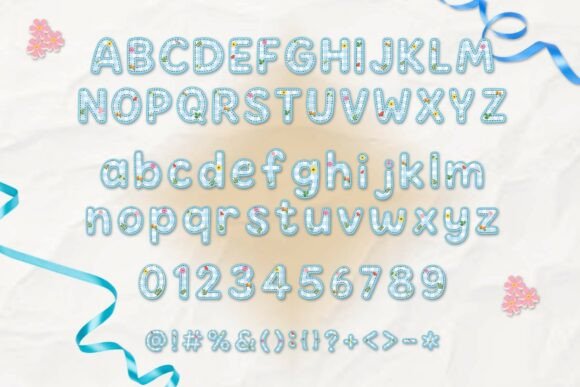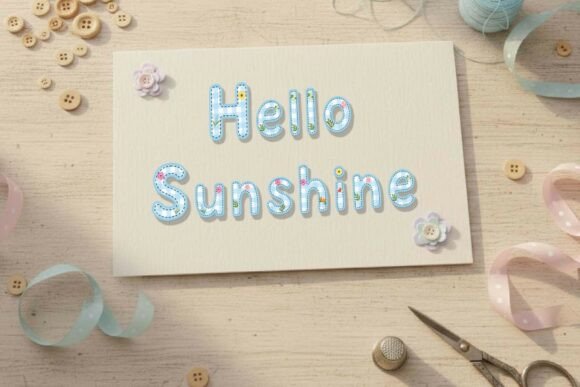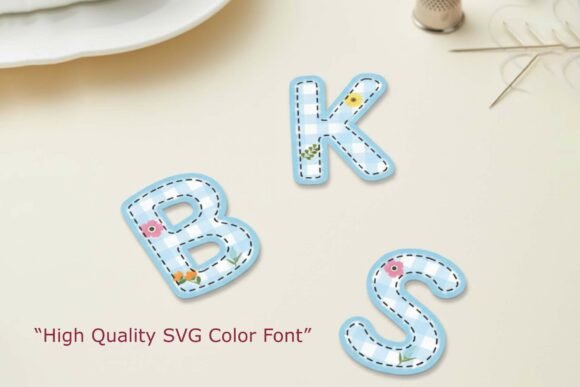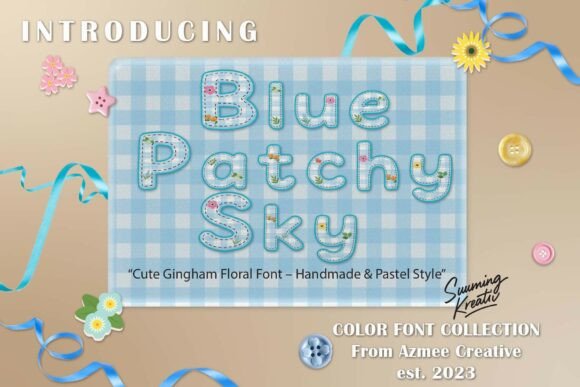
Bring a Touch of Handmade Charm to Your Designs with Blue Patchy Sky Font
Are you looking for a unique and charming font to add a personal touch to your designs? Look no further than Blue Patchy Sky, a delightful color SVG font that captures the essence of handmade crafts and DIY projects. Inspired by patchwork, stitching, and gingham fabric, this font is perfect for crafty designers and makers who want to infuse their work with warmth and personality.
What Makes Blue Patchy Sky Font So Special?
Blue Patchy Sky is more than just a font – it’s a design element that can elevate your projects to a whole new level. Each letter is carefully crafted to resemble a soft fabric applique, complete with colorful flowers and playful stitching details. The result is a font that looks like it was handmade with love and care, perfect for adding a touch of whimsy and charm to your designs.
Key Features of Blue Patchy Sky Color Font
- Soft Blue Gingham Pattern with Floral Embroidery: The font features a beautiful soft blue gingham pattern with floral embroidery, giving it a realistic and handmade look.
- Realistic Stitched Outline: The font has a realistic stitched outline that adds to its handmade charm, making it perfect for craft and DIY projects.
- Cute and Bright Pastel Color Palette: The font comes in a range of cute and bright pastel colors that are perfect for baby shower invitations, nursery decor, and other projects that require a soft and soothing color scheme.
Perfect for Craft and DIY Lovers
Blue Patchy Sky font is ideal for crafty designers and makers who want to create unique and personalized projects. Whether you’re working on a scrapbooking project, creating handmade labels, or designing nursery decor, this font is sure to add a touch of warmth and personality to your work.
Use Blue Patchy Sky Font for a Variety of Projects
The versatility of Blue Patchy Sky font makes it perfect for a wide range of projects, including:
- Craft Projects: Use the font to create unique and personalized craft projects, such as handmade cards, gift tags, and decorations.
- Baby Shower Invitations: The font’s soft and soothing color palette makes it perfect for baby shower invitations, nursery decor, and other baby-related projects.
- Scrapbooking: Add a touch of handmade charm to your scrapbooking projects with Blue Patchy Sky font.
- Handmade Labels: Use the font to create personalized labels for your handmade products, such as candles, soap, and jewelry.
- Nursery Decor: The font’s cute and playful design makes it perfect for nursery decor, such as wall art, mobiles, and bedding.
- Stickers: Use the font to create custom stickers for your projects, such as scrapbooking, journaling, and crafting.
Make Your Next Project Bloom with Blue Patchy Sky
If you’re looking for a font that can add a touch of handmade charm to your designs, look no further than Blue Patchy Sky. With its soft blue gingham pattern, floral embroidery, and realistic stitched outline, this font is perfect for crafty designers and makers who want to create unique and personalized projects. So why wait? Download Blue Patchy Sky font today and make your next project bloom! πΌπ